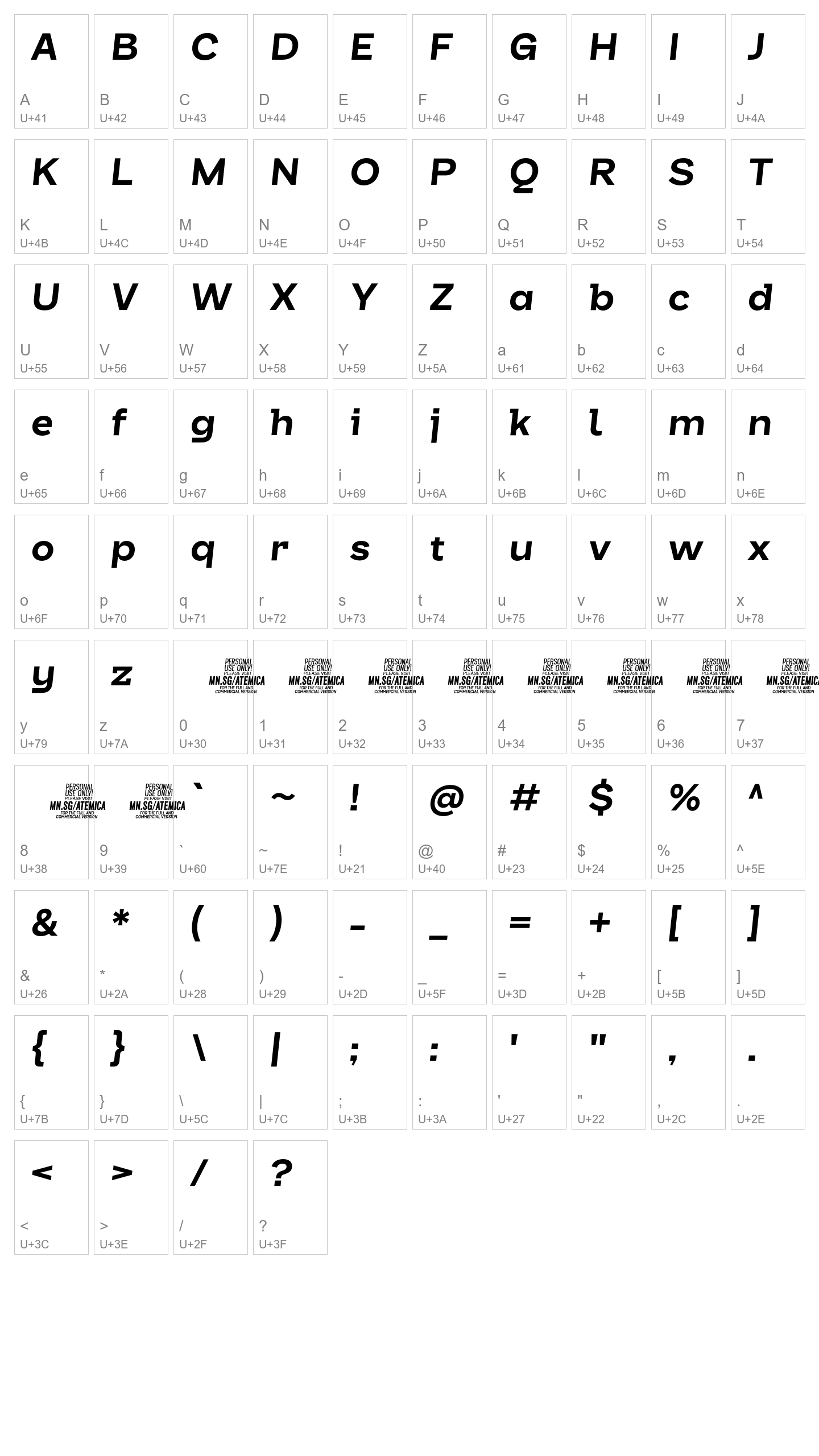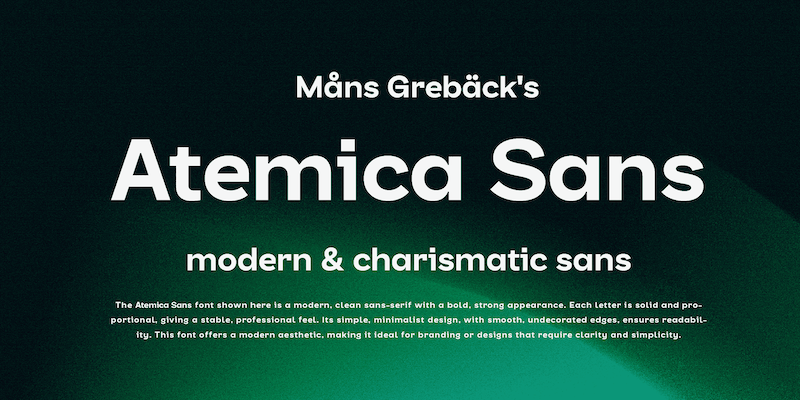
Atemica Sans
Atemica Sans is a sturdy and versatile sans-serif, designed with both readability and aesthetic in mind.
Its letterforms has a contemporary and fresh look, making it a good choice for contexts relating to tech and art likewise.
The even distribution of weight and open counters make it a strong choice for any project that requires clarity and a clean look.